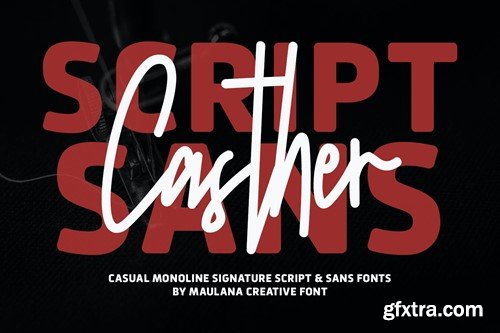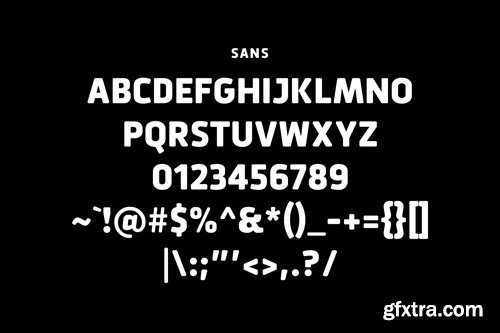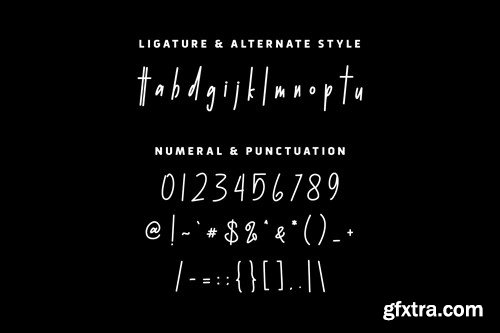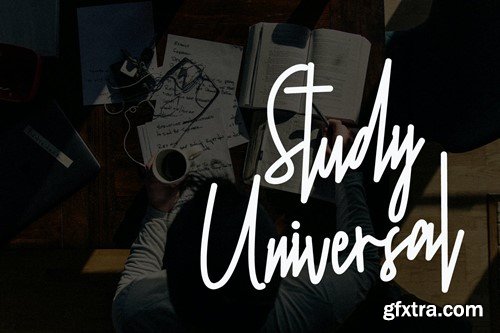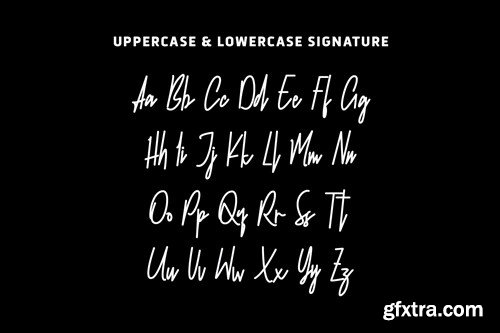
Cashter Casual Script Sans Font
Give your designs an authentic brush handcrafted feel. “ Cashter Casual Script Sans Font” is perfectly suited to signature, stationery, logo, typography quotes, website header, branding and more.